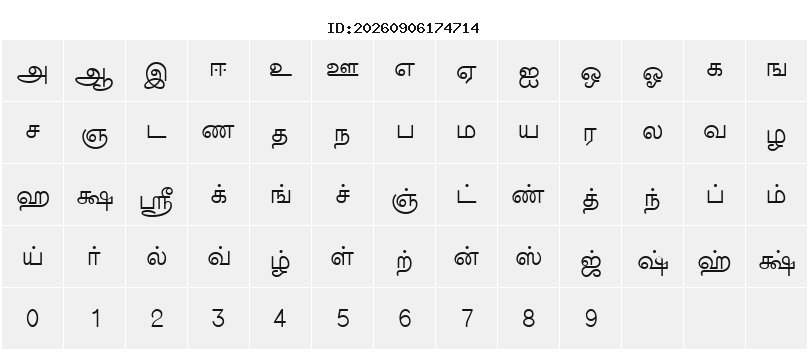
TMNEWS Preview
• Font Name: TMNEWS
• Font Style: 0-Normal A
• Font ID: Alts:TMVL0-Normal A
• Full Font Name: TMNEWS-Normal
• Version: 1.0 Thu Oct 31 12:42:02 1996
• PostScript Name: TMVL0-Normal-A
• Character Count: 188
About TMNEWS.ttf
TMNEWS.ttf is a modern, elegant sans-serif font designed for ultimate readability and visual harmony. Perfect for branding, headlines, web design, and print materials.